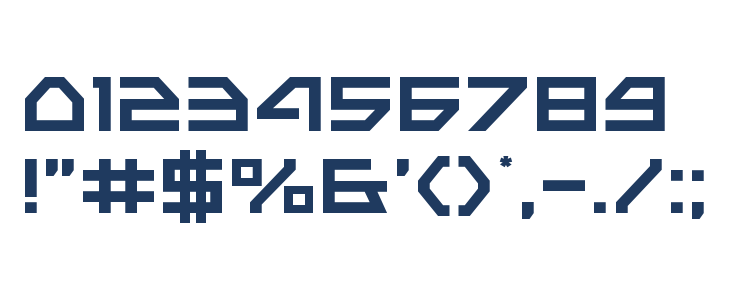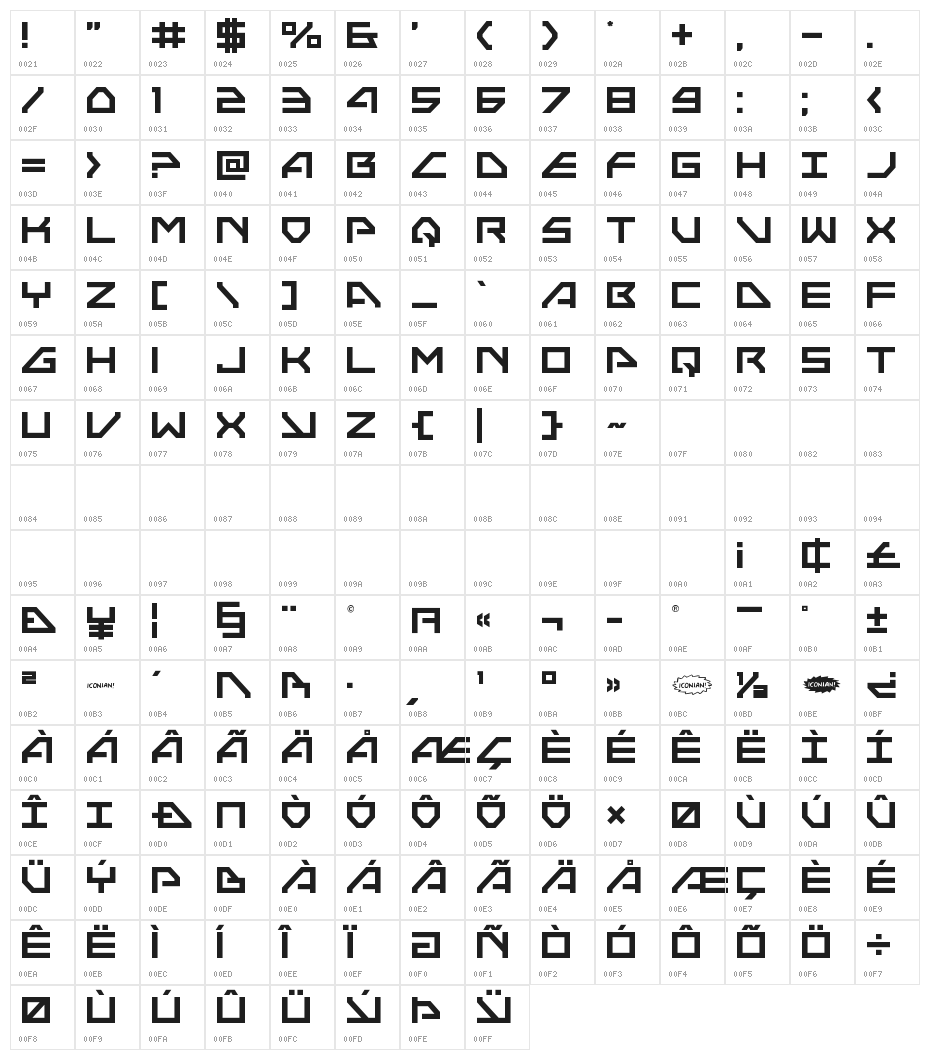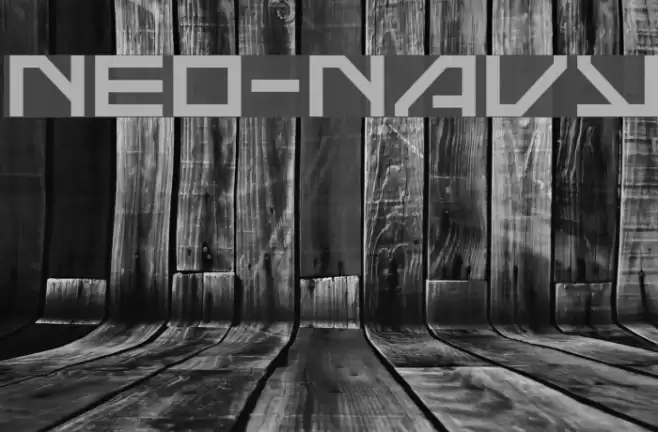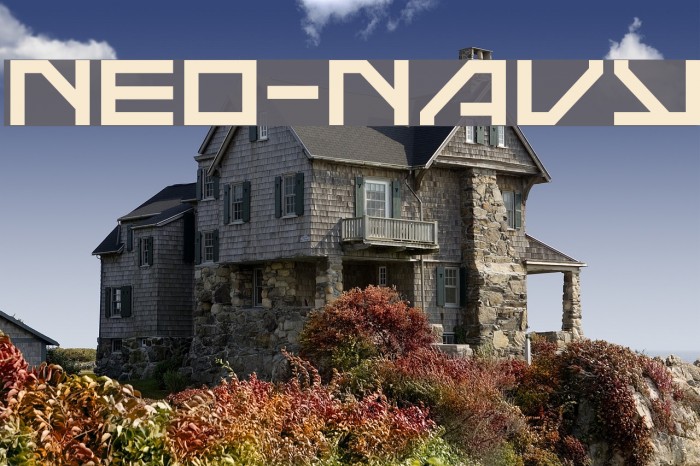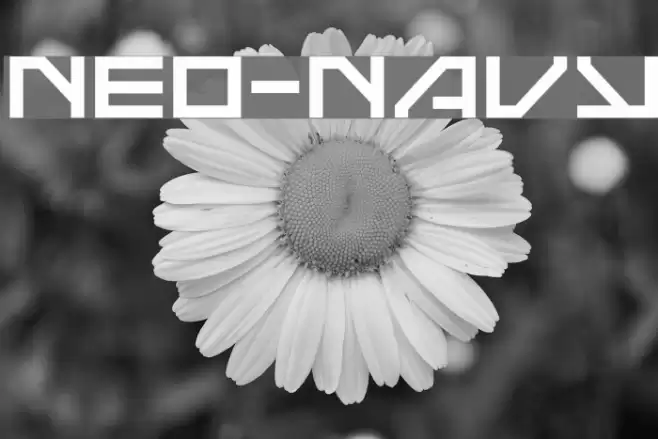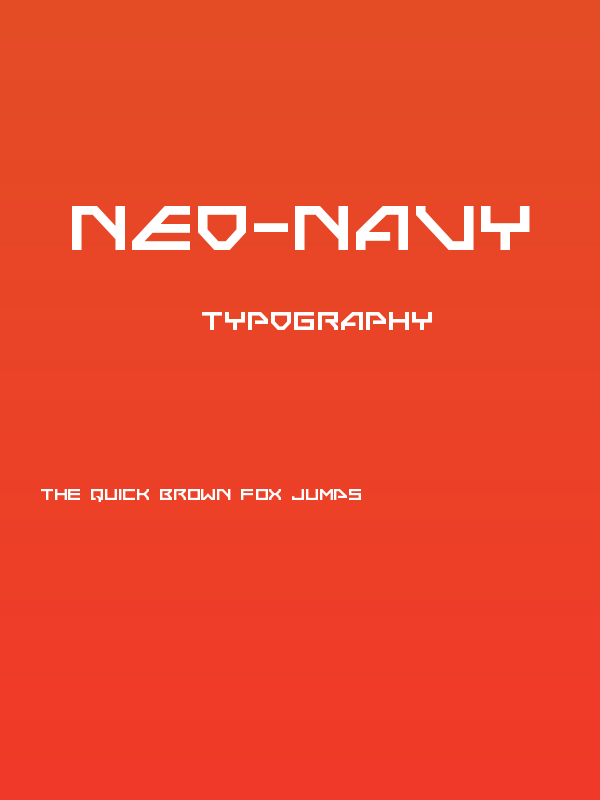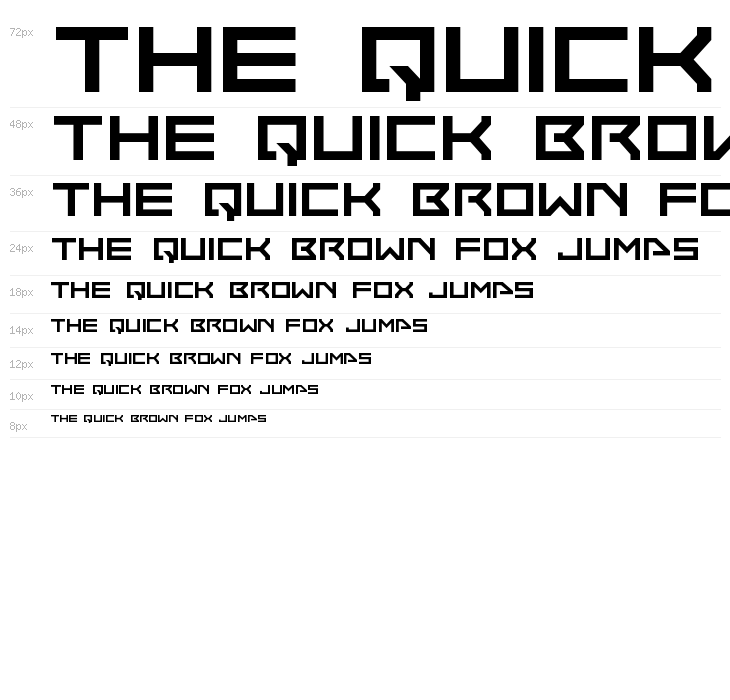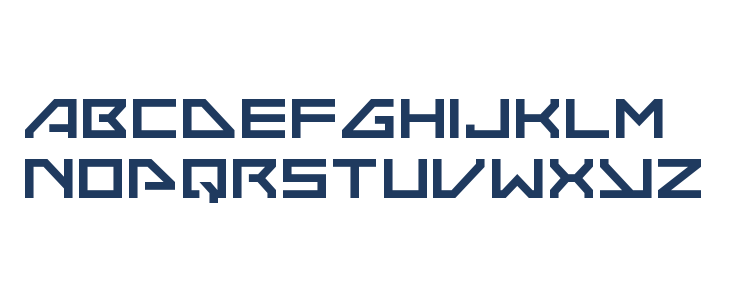
Neo-Navy Font
Neo-Navy Description
This font features a bold, geometric design with sharp angles and a futuristic aesthetic. The characters are constructed with straight lines and angular cuts, giving it a modern and edgy appearance. The uppercase and lowercase letters maintain a consistent style, with unique shapes that make each character stand out. The numbers and special characters follow the same design principles, ensuring a cohesive look across all elements. This font's distinct style makes it ideal for projects that require a contemporary and innovative feel.
Proposed ProjectsIdeal for technology branding, sci-fi movie posters, video game titles, and modern advertising campaigns.